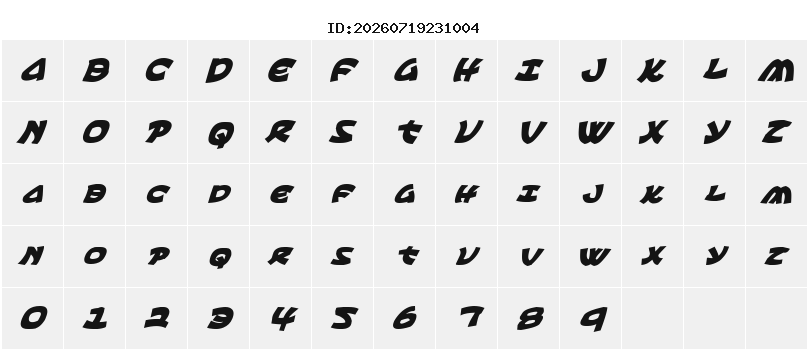
Ephesian CondBoldItal Preview
• Font Name: Ephesian CondBoldItal
• Font Style: CondBoldItal
• Full Font Name: Ephesian CondBoldItal
About Ephesian CondBoldItal.ttf
Ephesian CondBoldItal.ttf is a modern, elegant sans-serif font designed for ultimate readability and visual harmony. Perfect for branding, headlines, web design, and print materials.